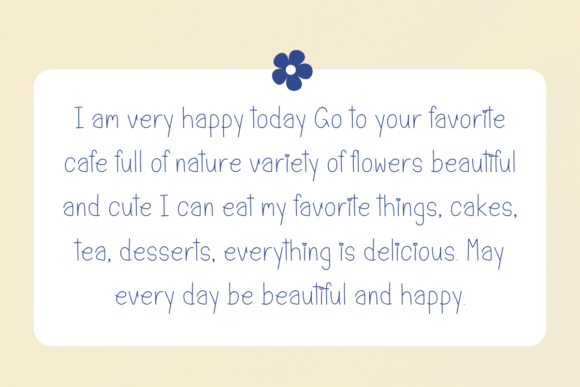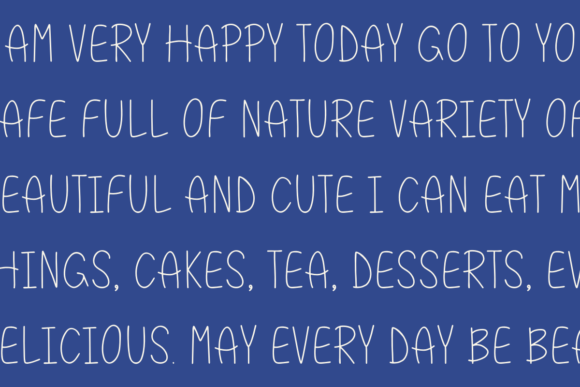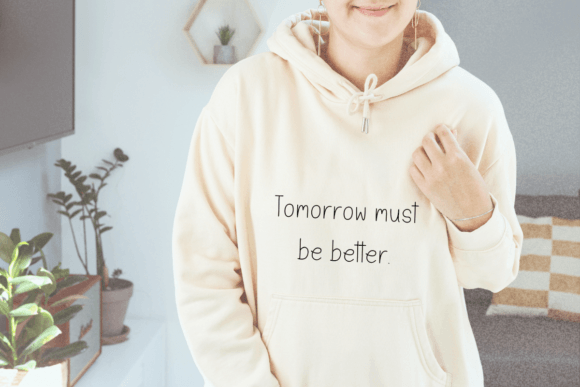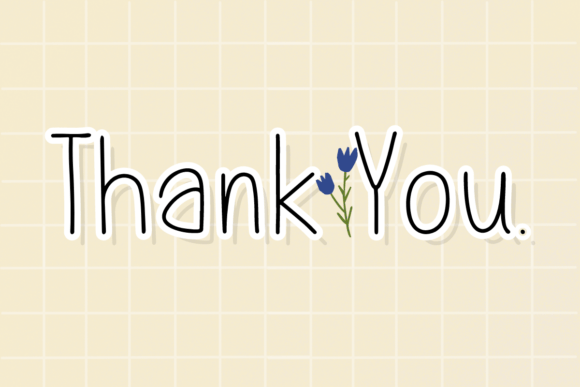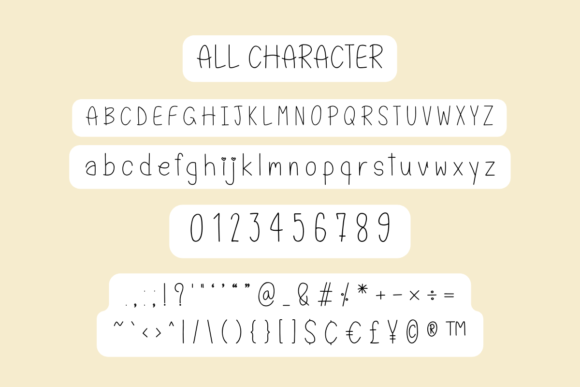
Unlock the Charm of Daily Note Font
Have you ever stumbled upon a font that instantly sparks your creativity and makes you want to pick up a pen and start doodling? For many designers, this is exactly what happens when they come across the Daily Note Font. This adorable handwritten font is more than just a pretty face – it’s a versatile tool that can elevate your designs and make them truly special.
With Daily Note Font, the possibilities are endless. Whether you’re creating crafts for kids, designing greeting cards, or developing educational materials for teachers, this font is the perfect addition to your toolkit. Its simple yet charming design makes it a valuable asset for any designer looking to add a touch of personality to their work.
Daily Note Font Key Features
- Font Family: Daily Note Font is a custom-designed font family, created specifically for note-taking and journaling purposes.
- Character Set: The font family includes a wide range of characters, including Latin, Cyrillic, and Greek alphabets, as well as various symbols and glyphs.
- Line Height and Spacing: Optimized for comfortable reading, with a line height of 1.2 and x-height of 0.5, ensuring clear and easy-to-read text.
- Unique Characteristics: Features a unique, hand-drawn aesthetic and subtle variations in letterforms, making it ideal for handwritten notes and journaling.
Review of Daily Note Font
Overall, I think Daily Note Font is a solid addition to any digital notebook or note-taking system. ✨ The font’s clean and minimalist design makes it perfect for jotting down quick notes or reading through longer texts. The high x-height also makes it easy on the eyes, even at smaller font sizes.
One of the things I like most about Daily Note Font is its versatility. ✨ It comes in a range of weights, from light to bold, making it suitable for a variety of use cases. Whether you’re writing a to-do list or editing a document, Daily Note Font has got you covered.
While Daily Note Font is a great font, there are a few limitations to consider: ⚠️
- Lack of italic and oblique styles, which can make it difficult to emphasize certain points or add a touch of personality to your notes.
- No bold italic or oblique styles, which can make it hard to convey strong emotions or ideas.
- Not ideal for lengthy blocks of text, as the font can start to feel a bit monotonous.
Despite its limitations, Daily Note Font is a great choice for anyone looking for a clean and versatile font for note-taking or reading. While it may not be the best option for lengthy texts or highly stylized documents, it’s perfect for jotting down quick notes or reading through shorter passages.
Tips for Getting the Most Out of it
Use the Daily Note Font in combination with other design elements to create a visually appealing and engaging design. Experiment with different font sizes, colors, and combinations to find the look that works best for you. Consider using the font in a heading or title to draw attention to important information.
The Daily Note Font is commonly used in digital planners, journals, and notebooks. It’s also used in social media graphics, presentations, and marketing materials. Consider using the font in a design that requires a clean and modern look.
Does Daily Note Font support ligatures and contextual alternates?
Yes, Daily Note Font supports ligatures and contextual alternates. Ligatures are enabled by default, and contextual alternates can be enabled or disabled depending on your design requirements. You can use the OpenType features in your font software to access these advanced typographic features.